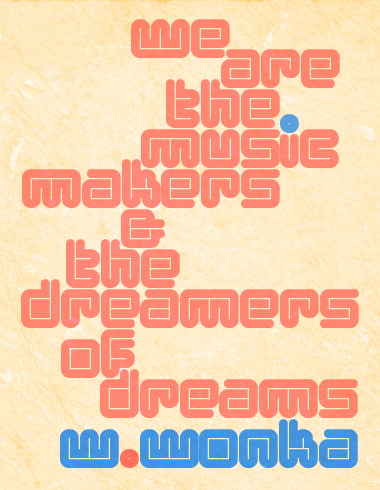
A bold & funky font with inside lines.
Based on a 1.78 filter so the rounded corner squares would fit with the quarter circles. Diagonals end up narrowing the inside lines, so I tried to used them as less as possible.
Accents designed in case they are absolutely necessary; suggestions are welcome on how to improve them.
17.08.09 Modified j and added an alternative j instead of ® and also a special dj ligature instead of ©. Question marks redesigned.
You know? I wasn't quite pleased with the j, so I took your advice and made one that goes below the line and put the older one where the ® should be (& I also upped the tail to match x-height) and as a special feature I added a dj ligature inspired by you, of course :)
it is placed instead of the ©